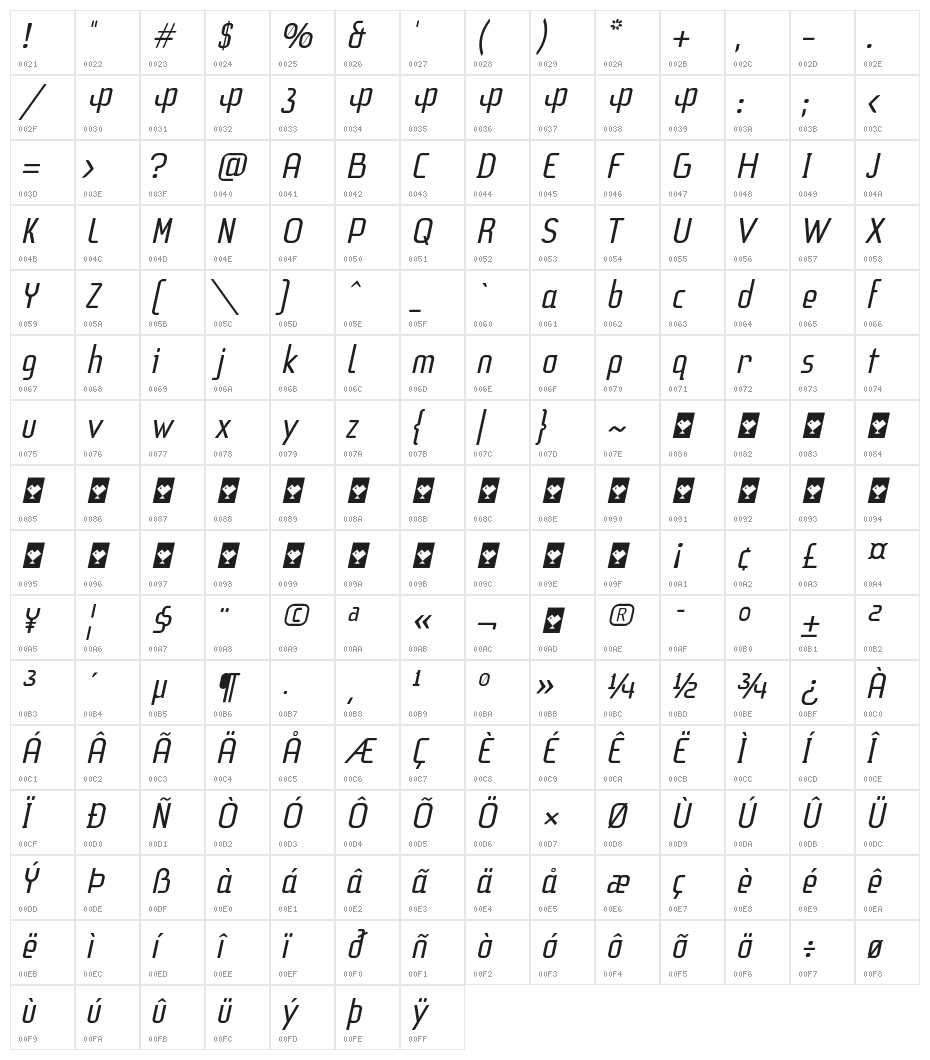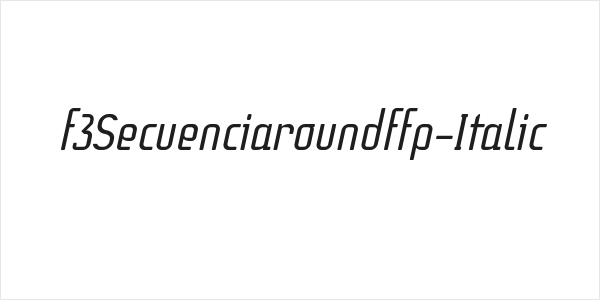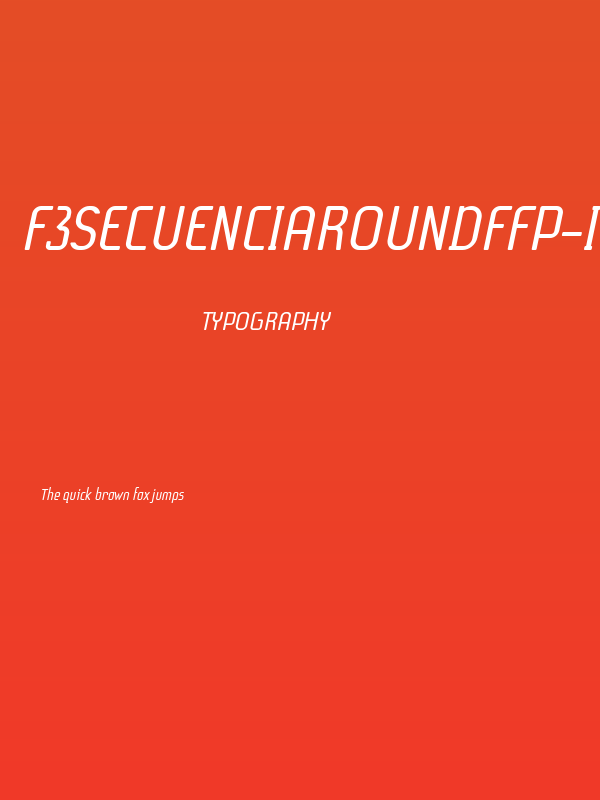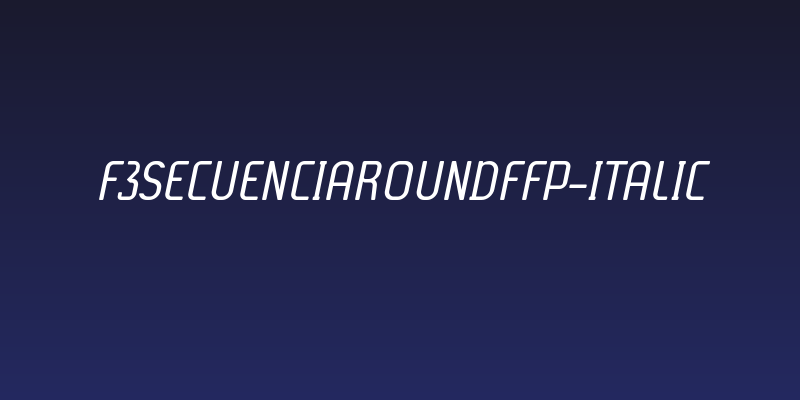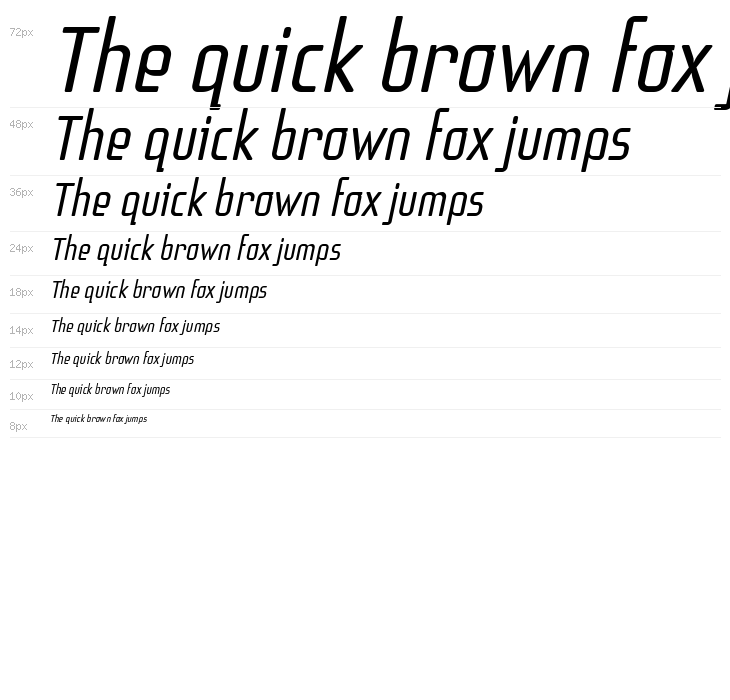
f3Secuenciaroundffp-Italic Font
f3Secuenciaroundffp-Italic Description
This font features a sleek and modern design with a slight italic slant, giving it a dynamic and forward-moving appearance. The characters are uniformly structured with a consistent stroke width, providing a clean and professional look. The uppercase and lowercase letters are well-proportioned, maintaining readability across different sizes. The numerals and special characters are designed to complement the alphabet, ensuring a cohesive visual style. The font's overall aesthetic is contemporary, making it suitable for a variety of applications where a modern and stylish impression is desired.
| Proposed Projects | Ideal for branding, advertising, digital media, and editorial design projects. |